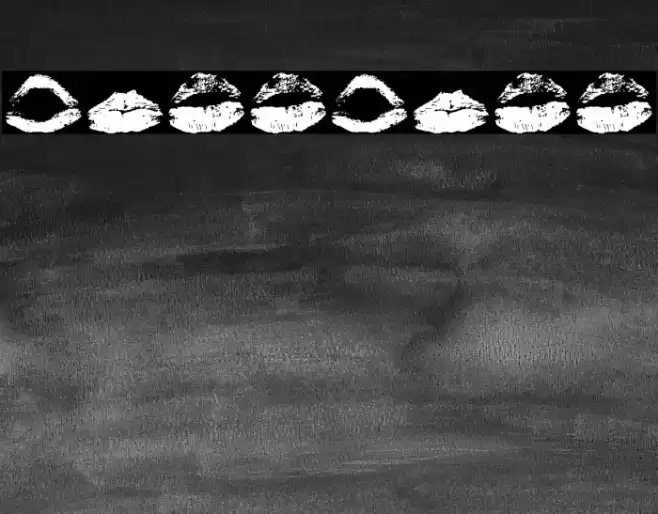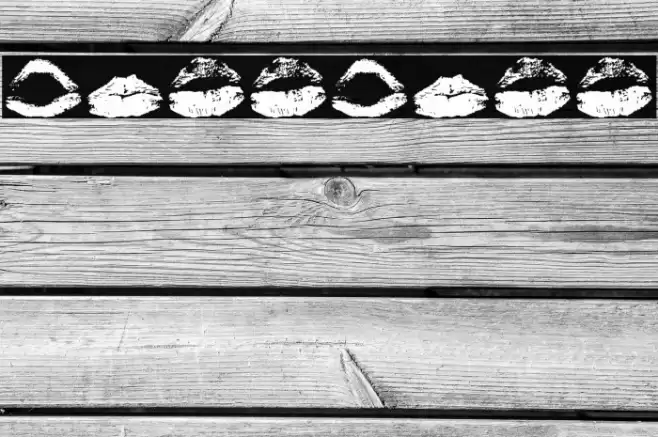
KissKiss Font
KissKiss Description
This is not a traditional font but rather a series of lip print images arranged to resemble characters. Each 'character' is formed by a unique lip print, giving it a playful and artistic appearance. The design is highly decorative and unconventional, making it more of an art piece than a functional typeface. The lip prints vary in texture and detail, adding a tactile quality to the overall design. This style is more suited for creative and artistic projects where a literal representation of lips is desired.
A decorative series of lip prints arranged to mimic characters from Uncategorized fonts.
- Proposed Projects: Ideal for art projects, creative branding, or any design work that requires a playful and artistic touch.
- Overall Style: Artistic, Playful
- Use Case: Art projects, Creative branding